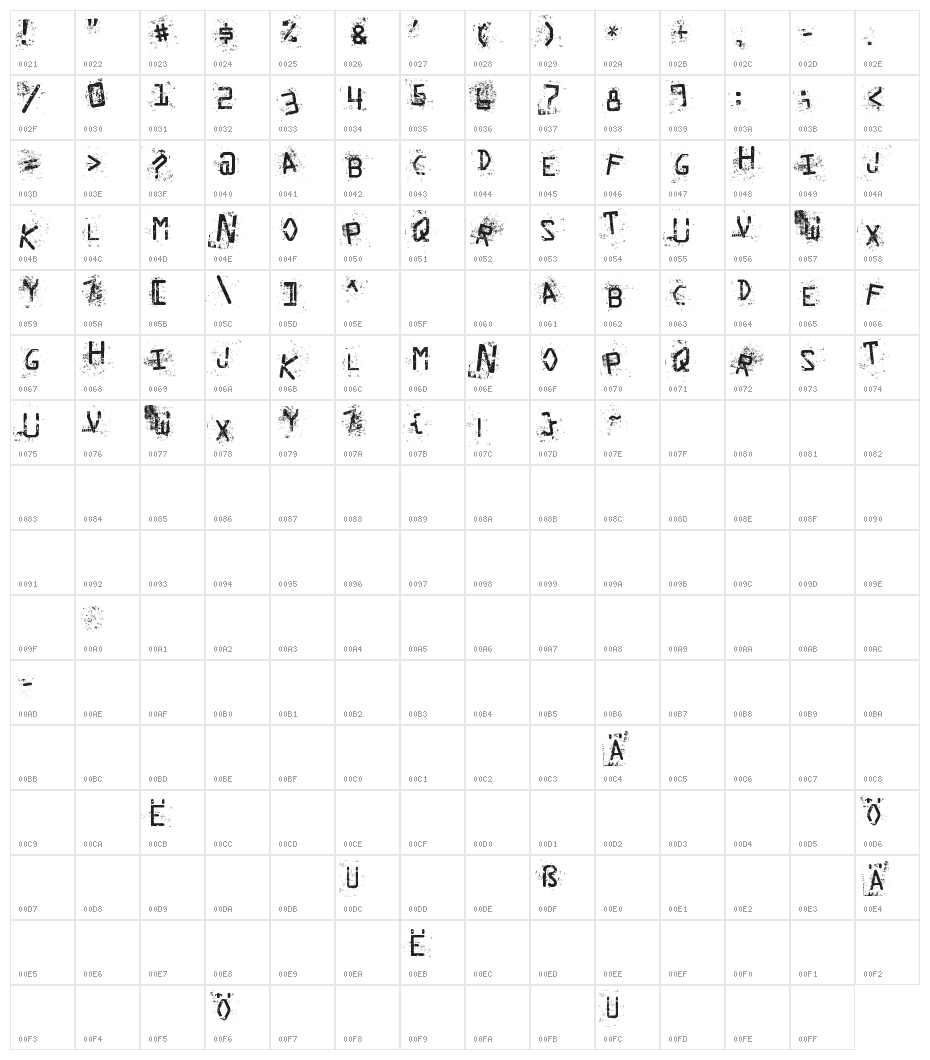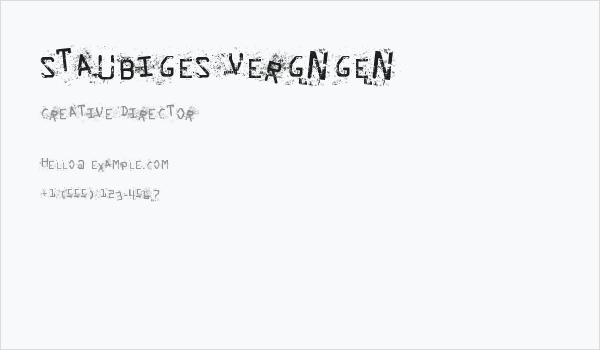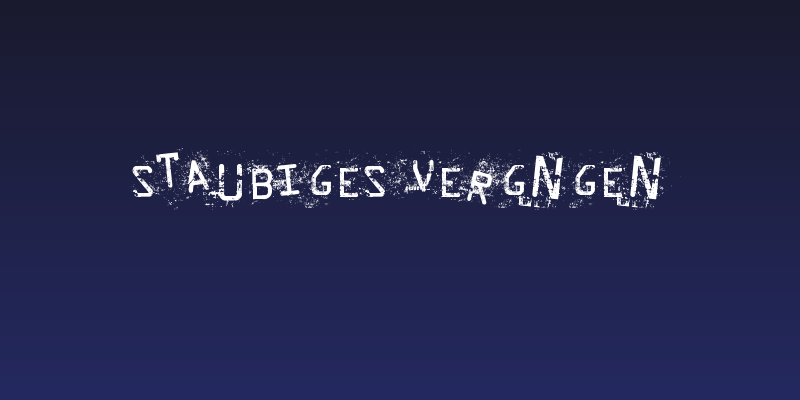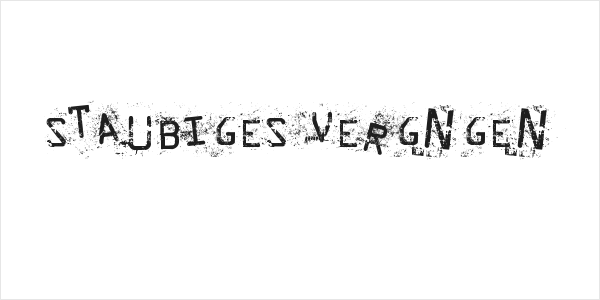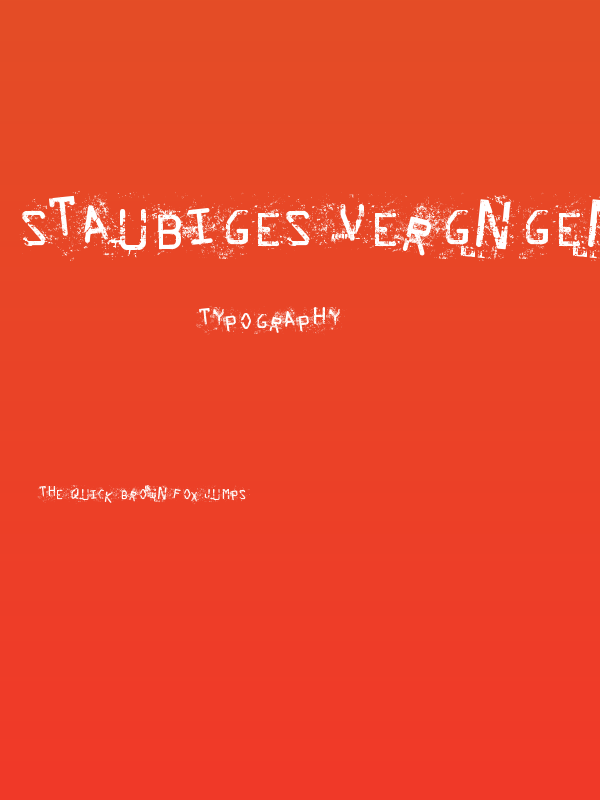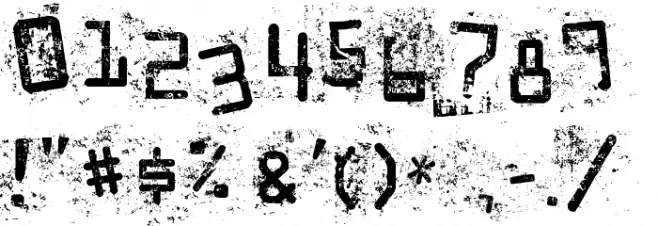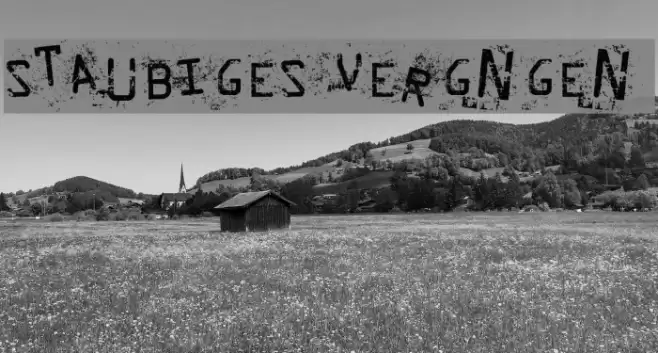
Staubiges Vergngen Font
Staubiges Vergngen Description
This font features a distressed, grunge style with a rough, textured appearance that mimics the look of worn or weathered surfaces. Each character appears as if it has been stamped or printed with a slightly uneven ink distribution, adding to its rugged aesthetic. The uppercase and lowercase letters, along with numbers and special characters, maintain a consistent level of distress, giving the font a cohesive yet chaotic feel. Its unique, edgy design makes it stand out, perfect for projects that require a bold, unconventional look.
| Overall Style | Grunge, Distressed |
| Use Case | Headlines, Posters, Album covers |
| Proposed Projects | Ideal for album covers, posters, urban-themed designs, and any project needing a gritty, edgy aesthetic. |